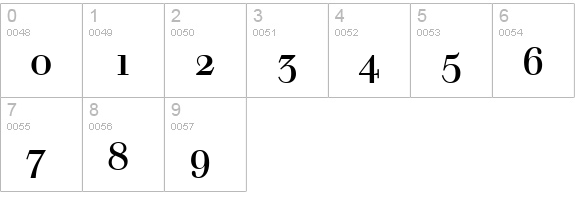
Walbaum Roman Small Caps & Oldstyle Figures is a timeless and elegant font that exudes a sense of sophistication and class. With its delicate serifs and graceful curves, this typeface captures the essence of traditional typography while maintaining a modern and refined look. The small caps in the Walbaum Roman Small Caps & Oldstyle Figures font add a touch of versatility and uniqueness to any design. Whether used for headings, titles, or body text, the small caps offer a distinct visual element that sets your work apart. In addition to its small caps, this font also features oldstyle figures. These figures have a classic and vintage charm, reminiscent of traditional typography found in old books and manuscripts. They add a sense of authenticity and character to any project. One of the most wonderful aspects of Walbaum Roman Small Caps & Oldstyle Figures font is that it is free. Yes, you read that right – it is freely available to download at FontsMarket.com. This means that you can enhance your designs with this beautiful font without any cost. Whether you are a graphic designer, a typographer, or simply someone who appreciates the beauty of typography, Walbaum Roman Small Caps & Oldstyle Figures font is a must-have in your font collection. Its timeless elegance and availability make it a valuable resource for all your design projects. So go ahead, download it for free and let your creativity soar.